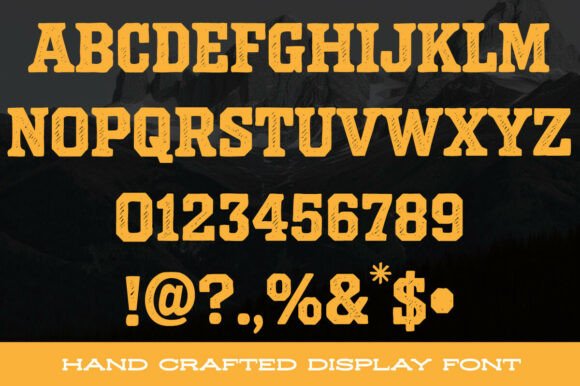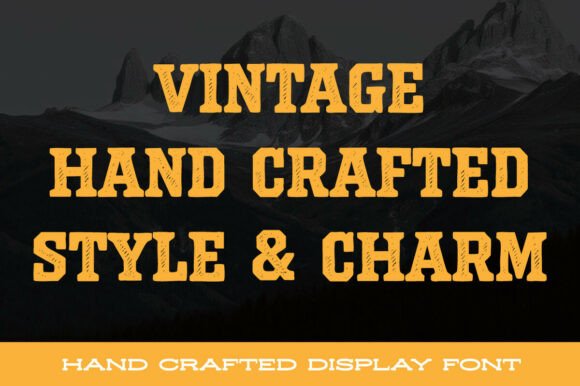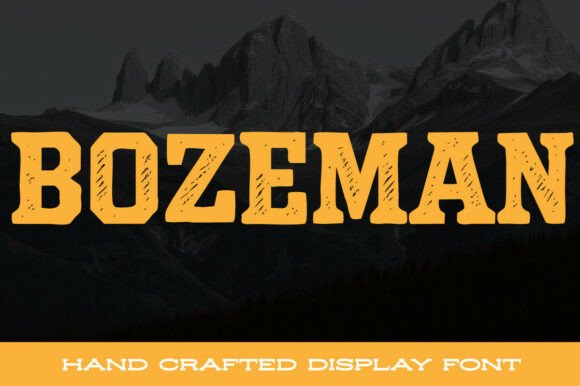
The Unmistakable Charm of Bozeman Font: A Designer’s New Best Friend
I’ll never forget the design project that led me to discover the Bozeman font. I was working on a branding campaign for an outdoor gear company, and I needed a font that could capture the rugged, adventurous spirit of the American West. After hours of scouring font libraries and trying out various typefaces, I stumbled upon Bozeman – and it was love at first sight! 💕
With its bold, rugged, and hand-crafted feel, Bozeman instantly resonated with the brand’s values and aesthetic. The strong slab serifs, blocky proportions, and distressed texture transported me to the wild west, evoking images of vintage signage, frontier posters, and hardworking craftsmanship.
What I Love About Bozeman Font
So, what makes Bozeman font so special? Here are a few things that I absolutely love:
• ✨ Unique character: Bozeman has a distinct personality that sets it apart from other fonts. Its rough, weathered detailing gives it an authentic hand-crafted feel that’s perfect for designs that demand strength and personality.
• ✅ Versatility: Whether you’re designing a logo, poster, packaging, or apparel, Bozeman stands tall with authority while carrying a sense of rustic charm.
• 💥 Timeless appeal: The font’s vintage inspiration ensures that it will remain stylish and relevant for years to come, making it an excellent choice for designs that need to stand the test of time.
While Bozeman font is an excellent choice for many design projects, it’s not without its quirks. Here are a few things to keep in mind:
• 🤔 Limited use in body text: Due to its bold and distressed texture, Bozeman font may not be the best choice for body text. It’s better suited for headlines, titles, and short paragraphs.
• ⚠️ Legibility at small sizes: While Bozeman is a bold font, its distressed texture can make it harder to read at small sizes. Make sure to test the font at different sizes to ensure it works for your design.
The Story Behind Bozeman Font
While the true origins of Bozeman font are unclear, it’s said to have been inspired by the rugged beauty of the American West. The font’s creator, a talented type designer, wanted to capture the spirit of vintage signage, frontier posters, and hardworking craftsmanship in a single typeface. The result is a font that’s both timeless and bold, perfect for designs that demand strength and personality.
What is Bozeman font best used for? Bozeman font is ideal for designs that demand strength and personality, such as logos, posters, packaging, and apparel.
Is Bozeman font suitable for body text? No, Bozeman font is better suited for headlines, titles, and short paragraphs due to its bold and distressed texture.
Is Bozeman font available in different weights and styles? Yes, Bozeman font comes in different weights and styles, including bold, regular, and italic.